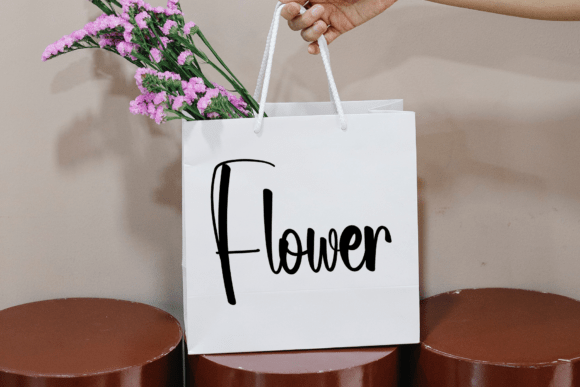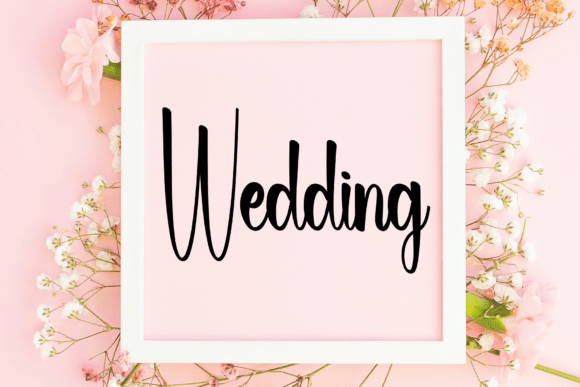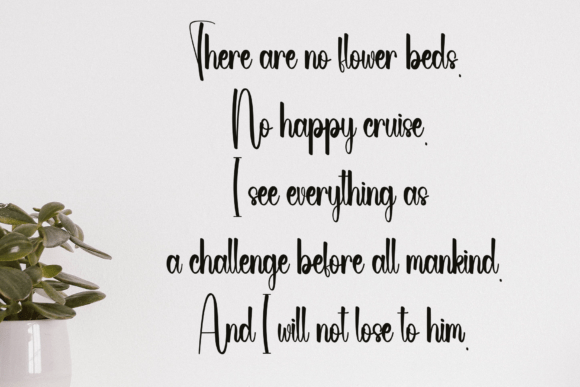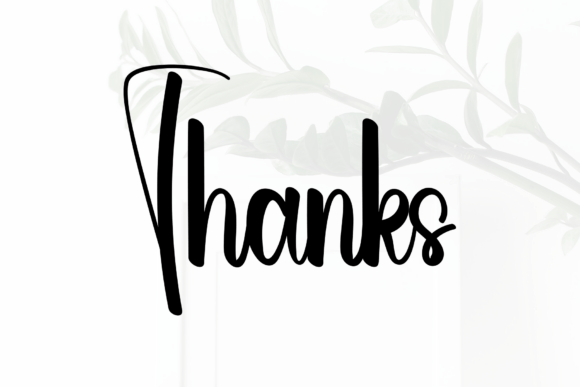
Introducing Actions Font: The Charming Handwritten Font for Your Design Needs
In the world of typography, a good font can make all the difference in the success of a design project. If you’re looking for a font that exudes warmth, friendliness, and a touch of perfection, look no further than Actions Font. This charming handwritten font is designed to bring a sense of heartfelt perfection to your designs, making it perfect for a variety of projects, from branding and invitations to social media graphics and more.
The Characteristics of Actions Font
Actions Font is a beautifully crafted handwritten font that boasts smooth strokes and organic lines. These characteristics work together to evoke a relaxed atmosphere, making it ideal for designs that require a friendly and approachable feel. The font’s smooth strokes also give it a fluid and natural look, making it perfect for use in a variety of design applications.
One of the best things about Actions Font is its versatility. Its unique blend of elegance and friendliness makes it suitable for a wide range of design projects. Here are just a few examples of how you can use Actions Font to elevate your designs:
- Branding: Use Actions Font to create a memorable brand identity that resonates with your target audience. Its friendly and approachable feel makes it perfect for use in logos, business cards, and other marketing materials.
- Invitations: Add a touch of elegance and sophistication to your invitations with Actions Font. Its smooth strokes and organic lines make it perfect for use in wedding invitations, birthday invitations, and other special occasion invites.
- Social Media Graphics: Use Actions Font to create eye-catching social media graphics that stand out from the crowd. Its friendly and approachable feel makes it perfect for use in social media posts, banners, and other graphics.
Why Choose Actions Font?
With so many fonts to choose from, why should you choose Actions Font for your design projects? Here are just a few reasons why Actions Font stands out from the crowd:
- Unique and Memorable: Actions Font is a unique and memorable font that will help your designs stand out from the crowd. Its smooth strokes and organic lines make it perfect for use in a variety of design applications.
- Easy to Read: Actions Font is easy to read, even at small sizes. This makes it perfect for use in body text, captions, and other applications where readability is key.
- Highly Versatile: Actions Font is highly versatile, making it suitable for use in a wide range of design projects. Whether you’re designing a logo, invitation, or social media graphic, Actions Font is a great choice.
Tips for Using Actions Font
Here are a few tips for using Actions Font in your design projects:
- Pair it with Other Fonts: Actions Font pairs well with other fonts, making it easy to create a unique and memorable design. Try pairing it with a bold sans-serif font for a striking contrast.
- Use it in Headlines: Actions Font is perfect for use in headlines, where its smooth strokes and organic lines can really shine. Try using it to create a eye-catching headline that grabs the reader’s attention.
- Experiment with Colors: Actions Font looks great in a variety of colors, so don’t be afraid to experiment and find the perfect color for your design.
In conclusion, Actions Font is a charming handwritten font that is perfect for designers and crafters looking to add a touch of warmth and friendliness to their designs. Its smooth strokes and organic lines evoke a relaxed atmosphere, making it perfect for use in a variety of design projects. Whether you’re designing a logo, invitation, or social media graphic, Actions Font is a great choice. So why not give it a try and see how it can elevate your designs?